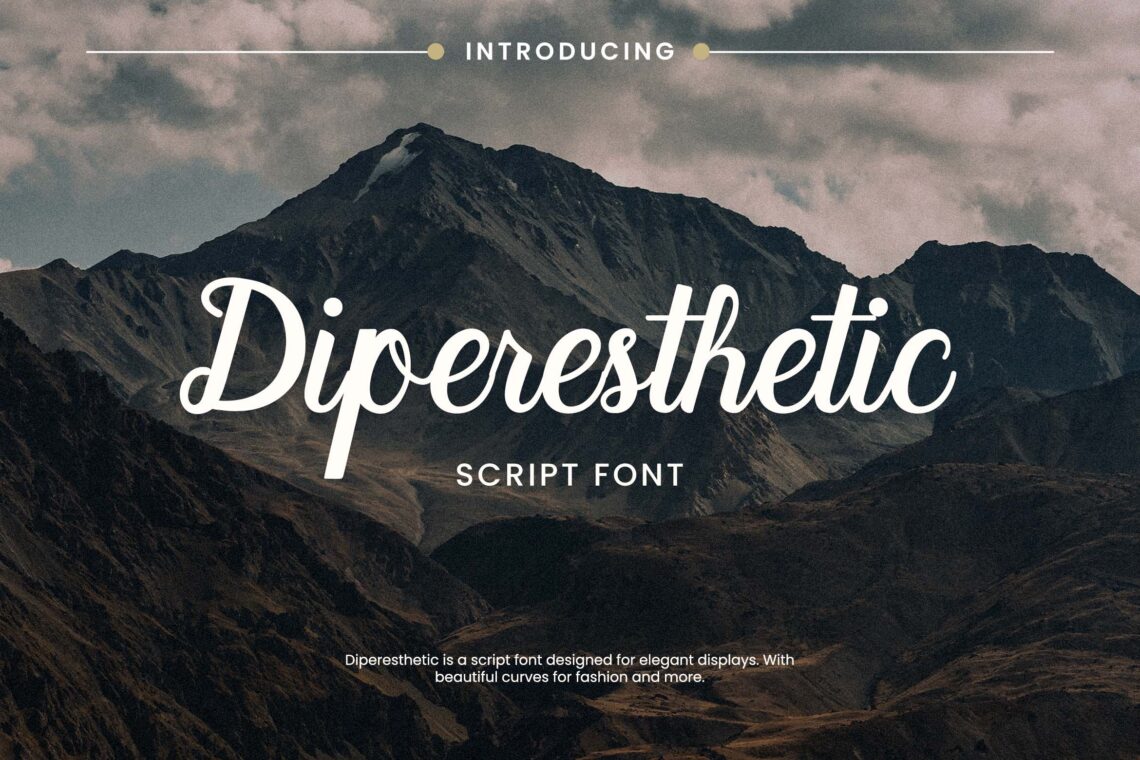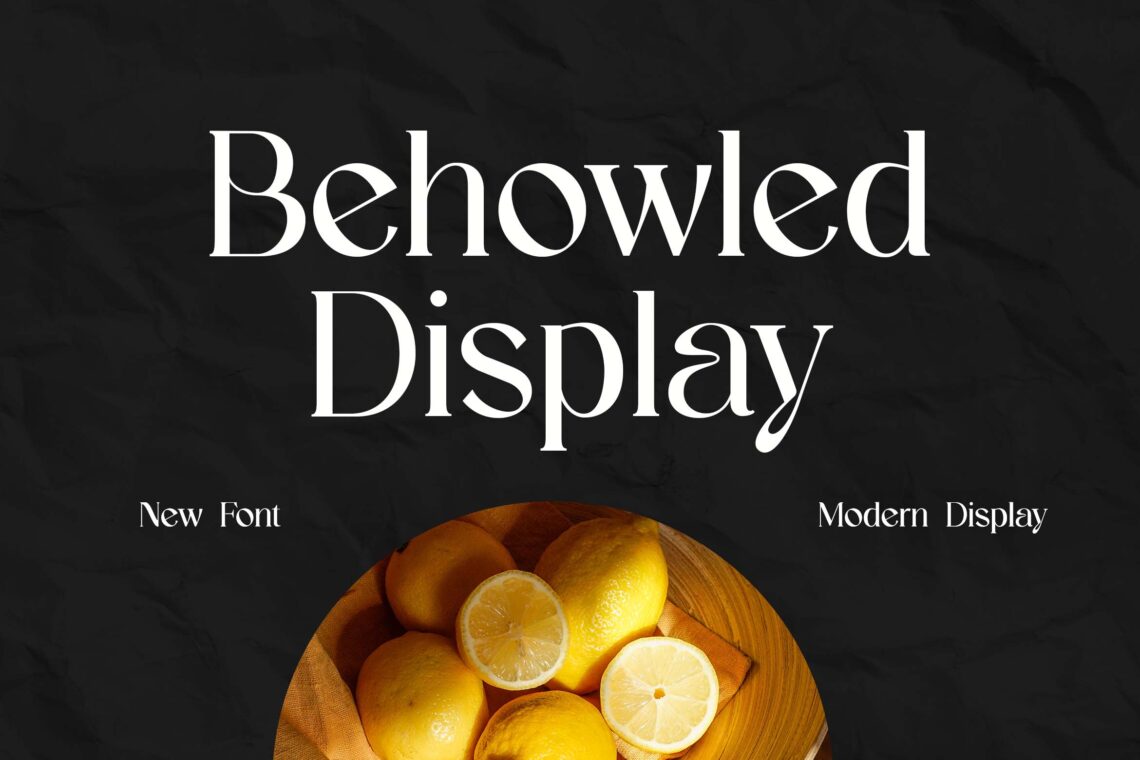
10 Best Seller Fonts 2025
Typography plays a crucial role in design, branding, and communication. As we step into 2025, designers and businesses are looking for the best seller fonts 2025 that can elevate their projects.
From sleek modern styles to elegant serifs, this year’s trends reflect a perfect blend of innovation and timeless appeal. Whether you’re working on branding, digital marketing, or creative projects, choosing the right font can make all the difference.
10 Best Seller Fonts of 2025
Here’s a curated list of the top 10 best seller fonts 2025 that are making waves in the design industry:
1. Equistrian Modern Serif Display Font
Equistrian Modern Serif Display Font is a sophisticated and elegant typeface that blends classic serif design with a contemporary twist. Featuring refined letterforms, balanced proportions, and high-contrast strokes, this font exudes luxury and professionalism, making it perfect for branding, editorial layouts, fashion magazines, and high-end product packaging.
Its stylish and timeless appeal enhances readability while maintaining a strong visual presence, ideal for logos, headlines, and upscale advertising. With a modern yet graceful aesthetic, Equistrian Modern Serif Display Font adds a touch of class and refinement to any design project.
2. Mirage Stellar Elegant Sans Serif Font
Mirage Stellar Elegant Sans Serif Font is a sleek and modern typeface that combines minimalism with a touch of luxury. Featuring smooth curves, clean lines, and well-balanced letterforms, this font exudes sophistication and versatility, making it perfect for high-end branding, editorial layouts, fashion labels, and digital designs.
Its refined structure ensures excellent readability while maintaining an elegant and contemporary aesthetic. Whether used for logos, headlines, or luxury product packaging, Mirage Stellar adds a touch of exclusivity and style, making any design look effortlessly polished and premium.
3. Grace Signature Bursh Signature Font
Grace Signature Brush Signature Font is a stylish and elegant handwritten typeface that mimics the fluidity and charm of natural brush strokes. Featuring smooth curves, organic flow, and a sophisticated yet relaxed feel, this font is perfect for branding, wedding invitations, fashion logos, social media graphics, and upscale packaging.
The graceful letterforms and artistic touch make it ideal for creating a personal and luxurious aesthetic. Whether used for signatures, quotes, or creative projects, Grace Signature adds a touch of authenticity, sophistication, and modern elegance to any design.
4. Behowled Classic Modern Serif Display
Behowled Classic Modern Serif Display is a timeless and sophisticated typeface that blends classic elegance with a contemporary edge. Featuring high-contrast strokes, refined serifs, and beautifully balanced letterforms, this font exudes luxury and professionalism, making it ideal for branding, editorial layouts, fashion magazines, and high-end product packaging.
With its bold yet graceful aesthetic, Behowled commands attention while maintaining an air of sophistication and readability. Perfect for logos, headlines, invitations, and advertising, this serif display font adds a touch of class and refinement to any design project.
5. Prestige Legacy Elegant Classy Font
Prestige Legacy Elegant Classy Font is a refined and luxurious typeface that embodies sophistication and timeless beauty. With its delicate serifs, balanced letterforms, and high-contrast strokes, this font is perfect for premium branding, editorial layouts, wedding invitations, fashion campaigns, and upscale packaging.
The graceful curves and elegant structure give it a sense of exclusivity and prestige, making it ideal for projects that demand a touch of class. Whether used for logos, magazine headlines, or luxury product designs, Prestige Legacy elevates any design with its effortless elegance and high-end appeal.
6. Boutonnieres Beautiful Wedding Font
Boutonnieres Beautiful Wedding Font is a romantic and graceful typeface designed to bring elegance and charm to wedding stationery and luxury branding. Featuring delicate strokes, flowing letterforms, and soft curves, this font exudes timeless beauty, making it perfect for wedding invitations, save-the-date cards, menus, and bridal branding.
Its calligraphic style mimics handwritten elegance, adding a personal and intimate touch to any design. Whether used for event signage, love letters, or floral-themed projects, Boutonnieres creates an atmosphere of sophistication and romance, making every moment feel truly special.
7. Defray Slab Font Family
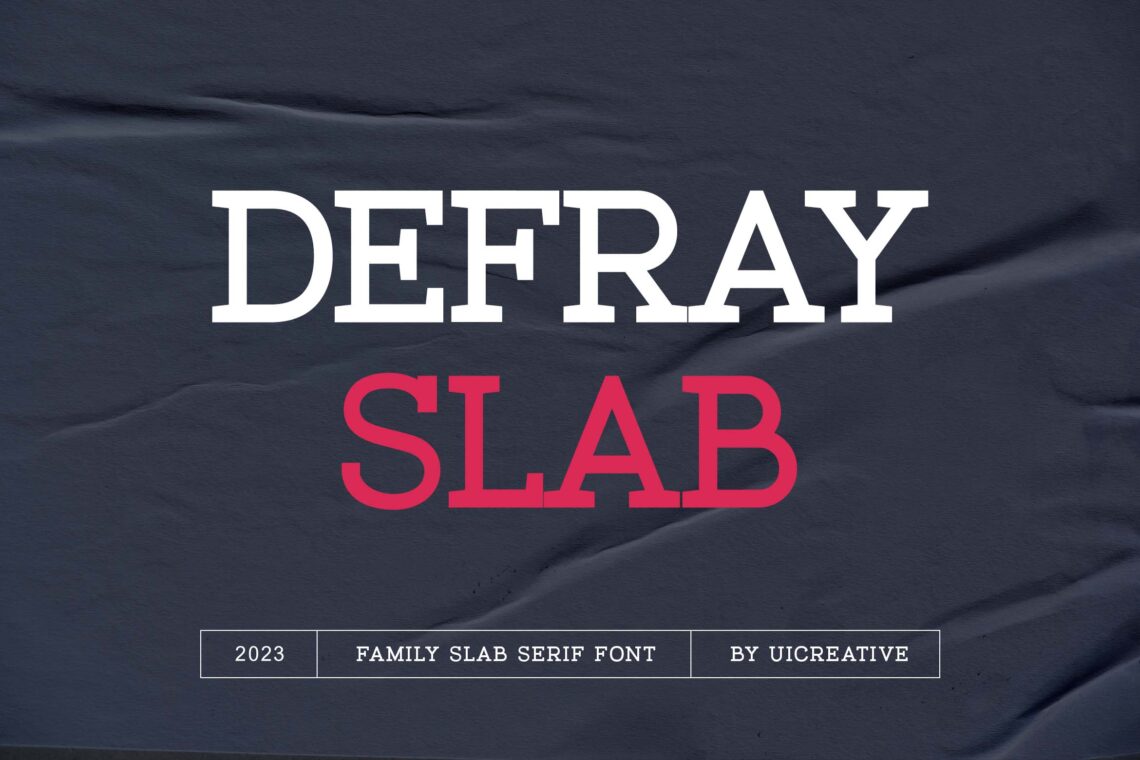
Defray Slab Font Family is a bold and versatile typeface that combines the strength of slab serifs with a modern, refined touch. Featuring strong, structured letterforms with thick serifs, this font family is perfect for branding, editorial layouts, headlines, posters, and product packaging.